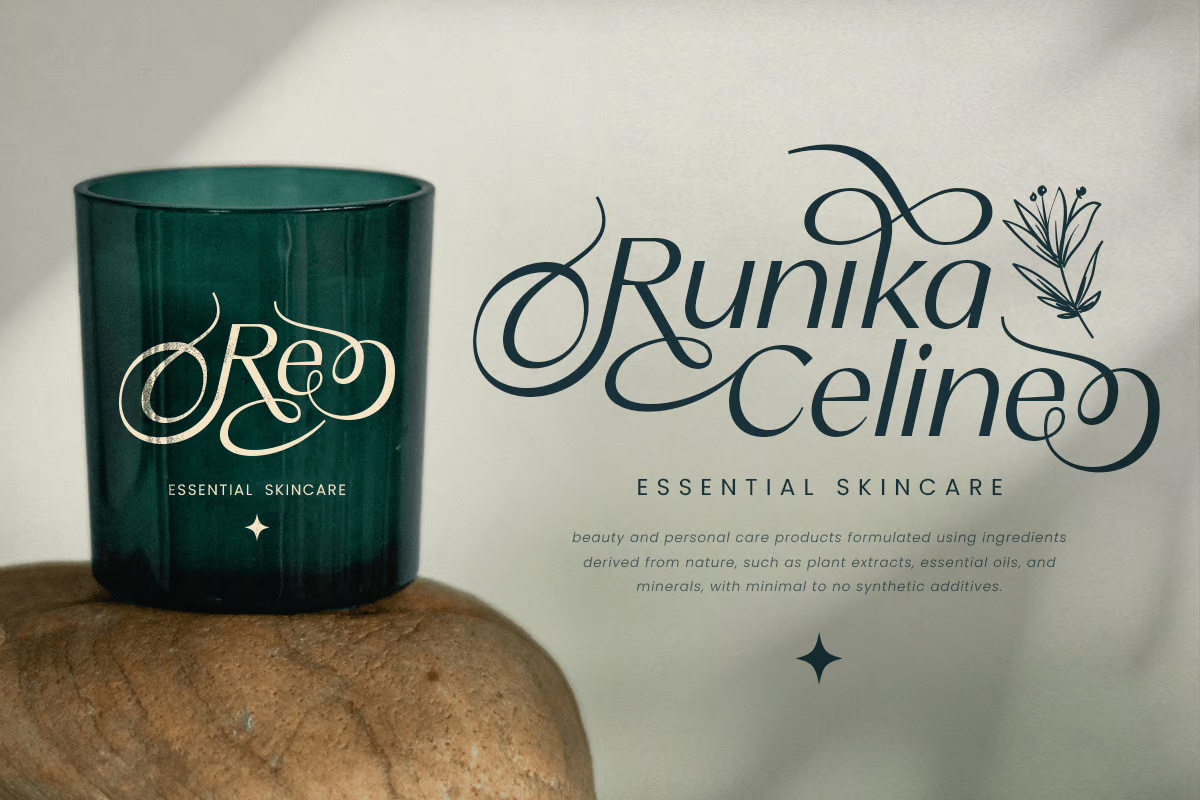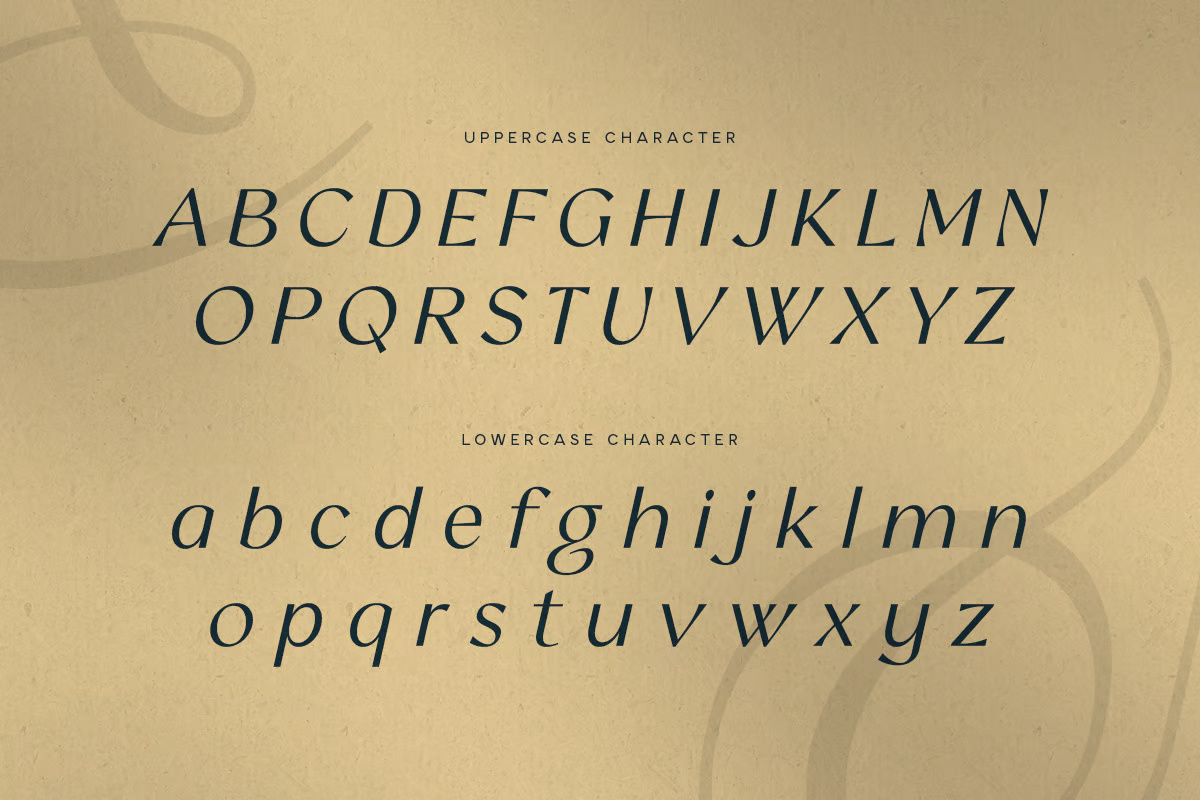
Asilum is a luxury italic font crafted to bring sophistication and class to your projects. With its smooth curves, stylish slant, and refined details, this font embodies timeless beauty. Whether for high-end branding, fashion editorials, or premium product packaging, Asilum adds an exquisite and professional touch that elevates any design.
Designed for luxury branding, Asilum enhances logos, invitations, and elegant website typography. Its italicized form creates a dynamic yet graceful flow, making it ideal for fashion magazines, beauty products, jewelry branding, and upscale event invitations. The blend of classic and modern elements ensures that your designs exude sophistication and exclusivity.
Asilum is more than just a font—it’s a statement of elegance. Its luxurious feel and sleek italicized form make it an excellent choice for designers seeking to create prestigious and captivating visuals. Whether for advertising, social media, or print materials, Asilum delivers a polished and refined look that stands out in any creative project.
Asilum Luxury Italic Sans Serif Font